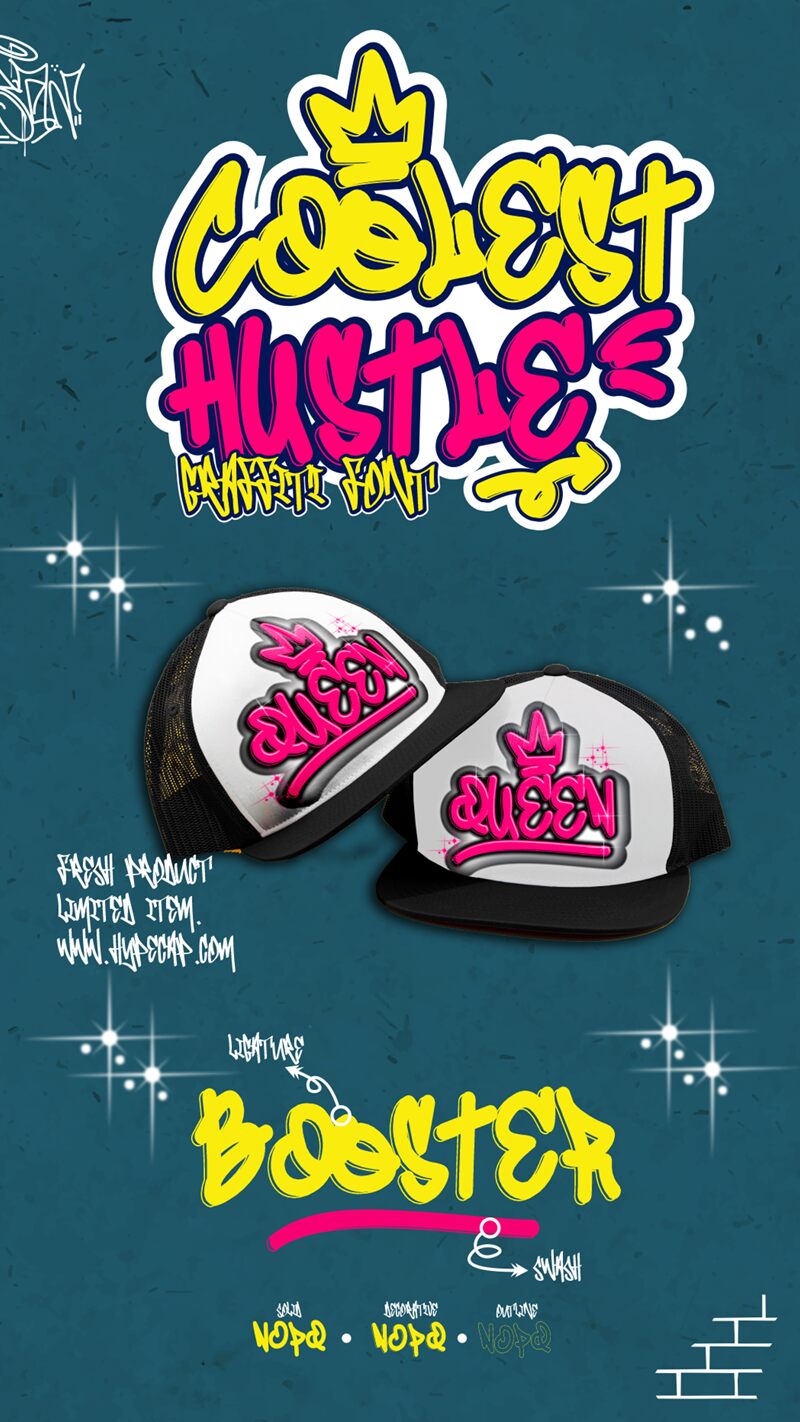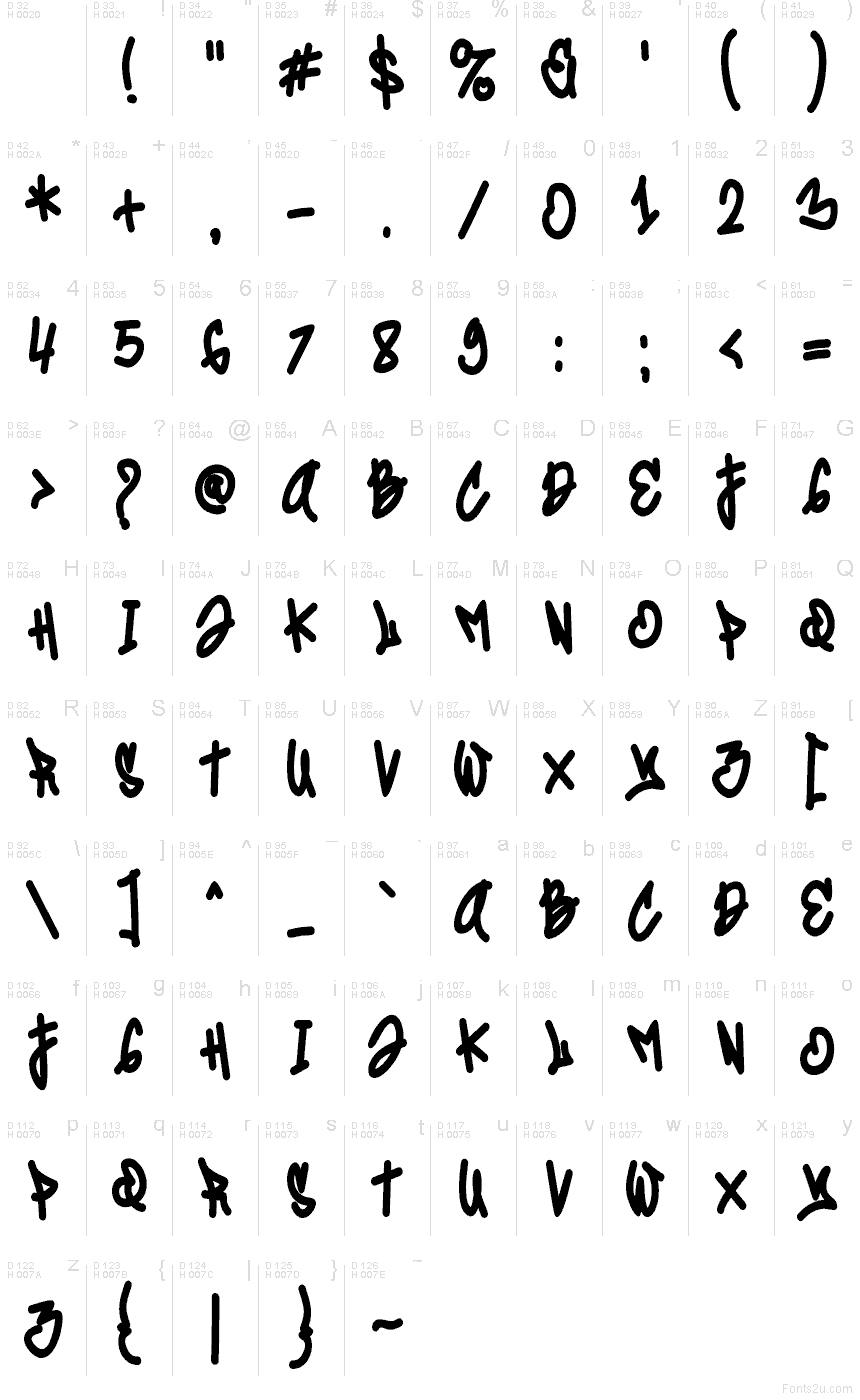
Coolest Hustle Solid font by Muhammad Panji Ramdhani of Sipanji x Figuree hits like a fresh marker tag—bold, inky, and a little unruly in the best way. Part of the Coolest Hustle family, it’s a free graffiti font, and the typeface brings thick, bouncy strokes with splattered edges that feel hand-thrown rather than polished. The uneven rhythm keeps it lively, while the solid weight stays readable even when you scale it up.
Using Coolest Hustle Solid on streetwear logos, skate posters, music flyers, sticker packs, YouTube thumbnails, album covers, and punchy social headers gives your message instant attitude. This free font shines when you let it breathe—try it big with generous spacing and minimal extra effects so the wet-ink texture can show. Pair it with a clean grotesk sans for subheads to keep the chaos under control.